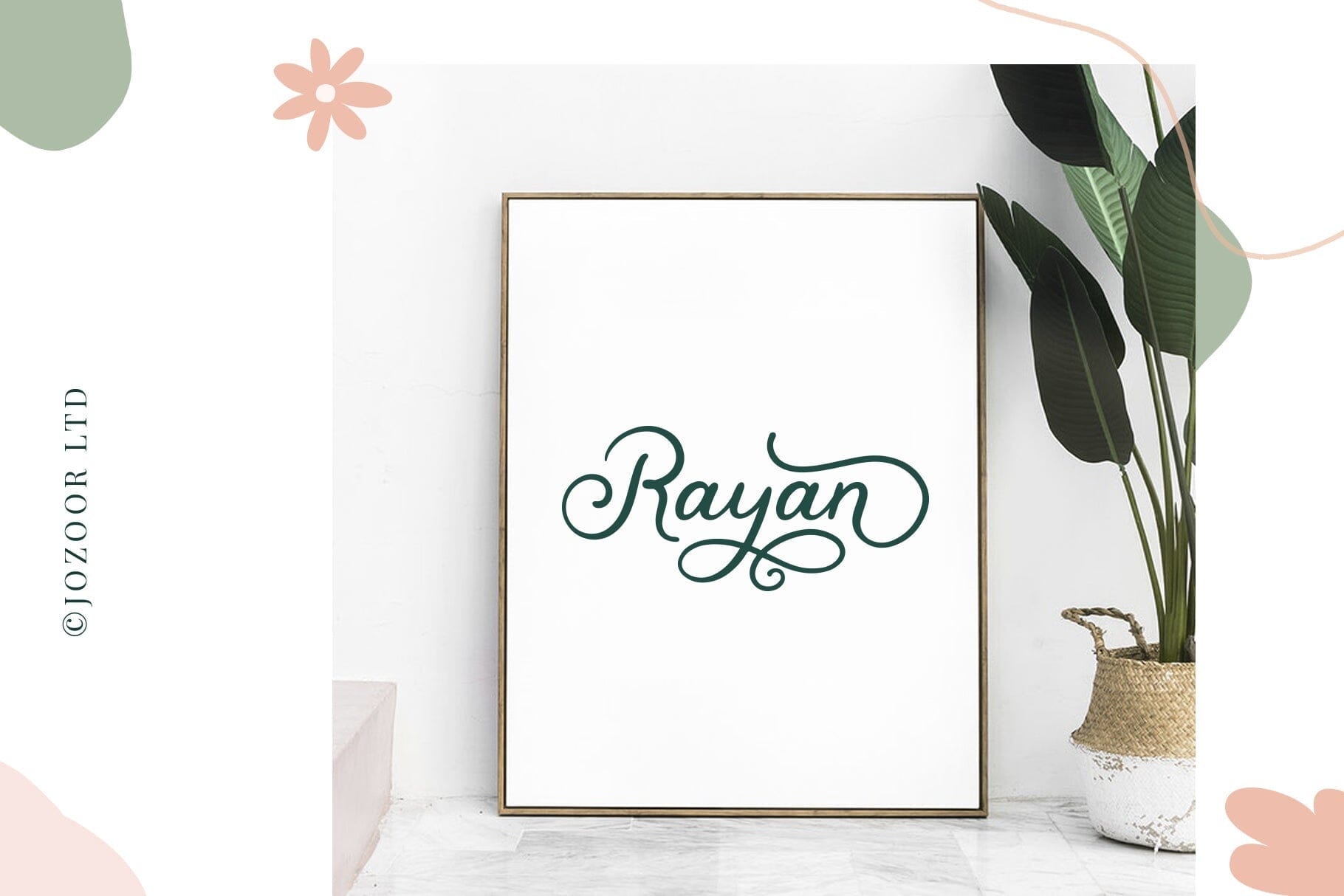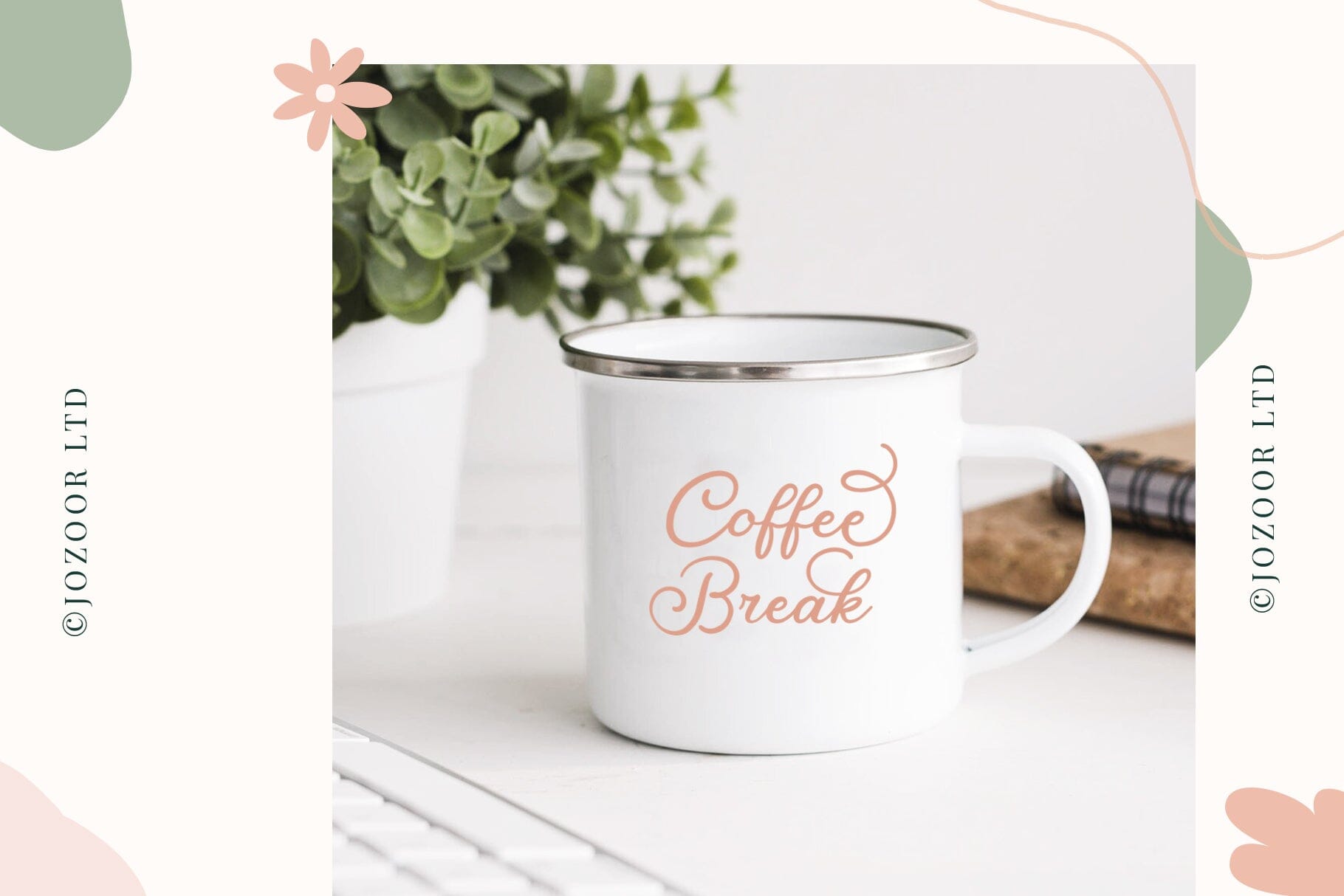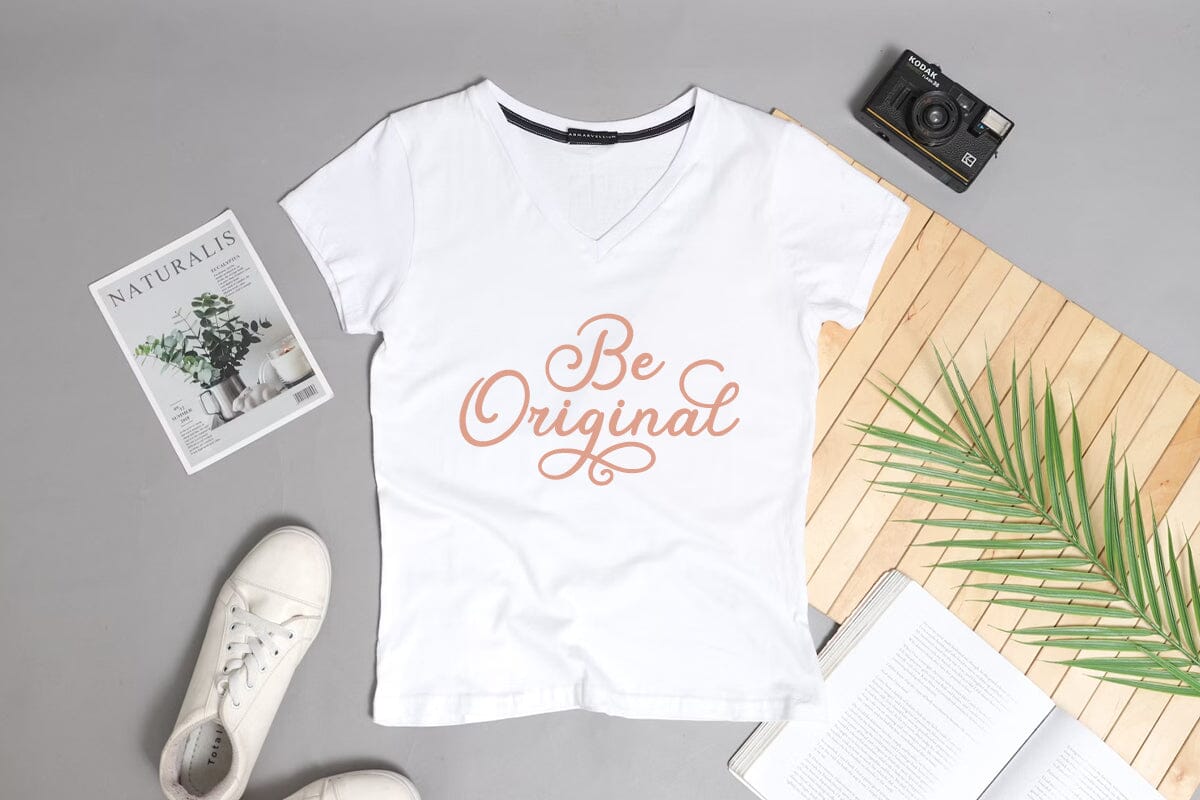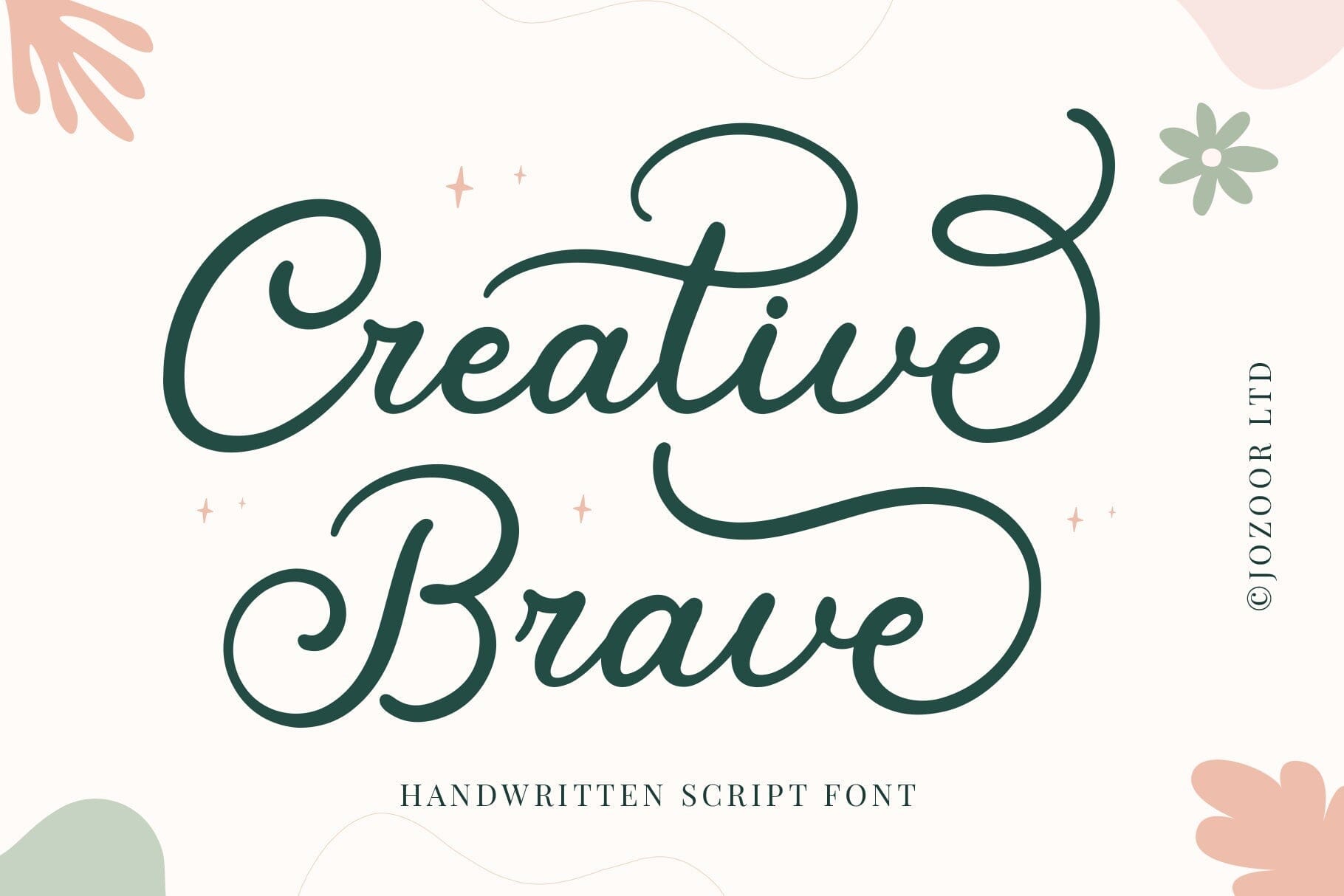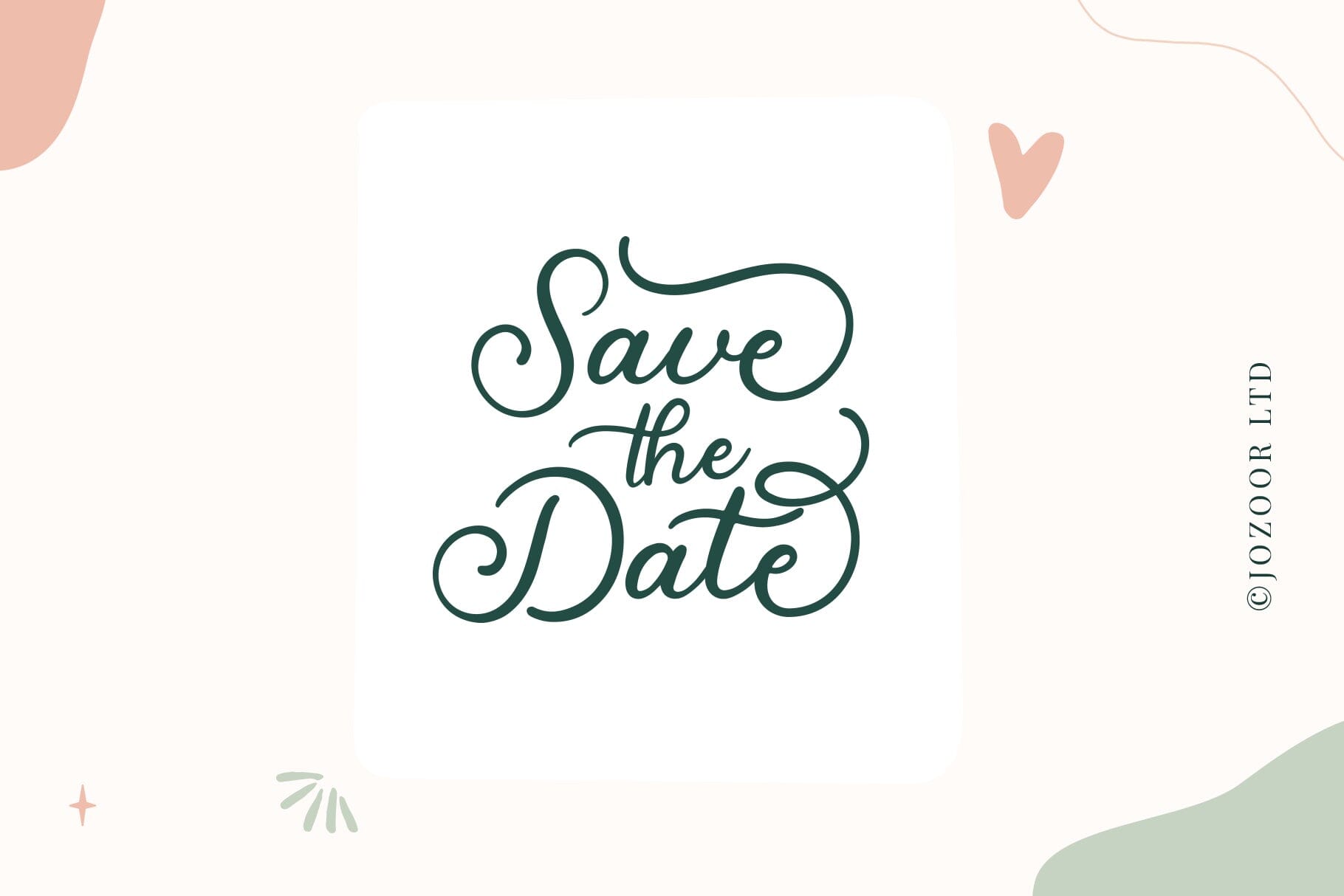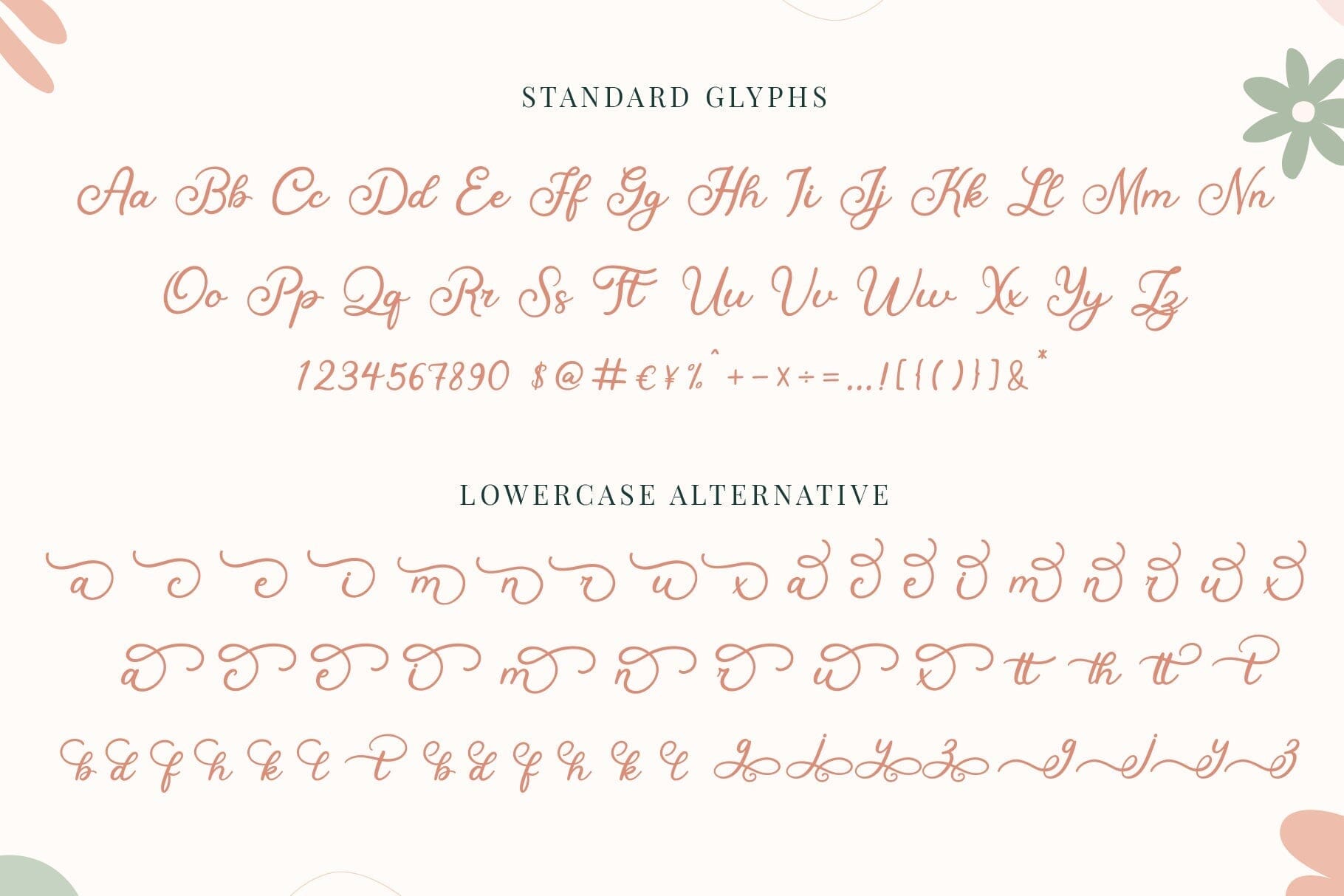
Creative Brave – Handwritten Script Font
About Creative Brave – Handwritten Script Font
Creative Brave is a stylish, delicate, elegant, and flowing handwritten script font. It has beautiful and well-balanced characters and as a result, it matches a wide pool of designs. Add it to your most creative ideas and notice how it makes them come alive! You will get: OTF Font File. TTF Font File. SVG File. User’s Guide PDF file. Hope you enjoy, and happy designing 🙂 ♥ JOZOOR